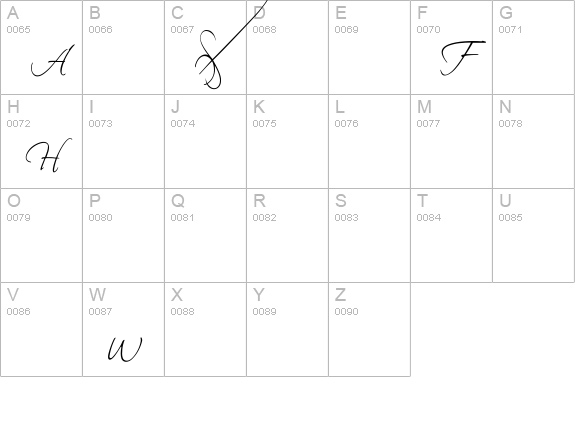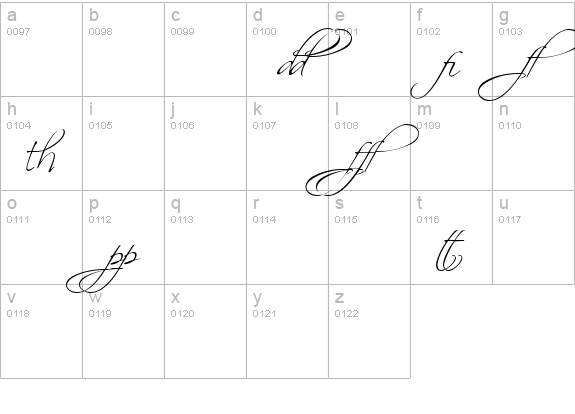
Scriptina - Alternates Font Details
Scriptina - Alternates is a stunningly elegant and versatile font that is sure to add a touch of sophistication to any design project. This font features a beautiful script style with exquisite letterforms that are both intricate and graceful. Its flowing curves and delicate strokes create a sense of elegance and charm, making it perfect for wedding invitations, greeting cards, logos, and more. What sets Scriptina - Alternates apart is its extensive collection of alternate letterforms. This font offers a wide range of stylistic variations for each letter, allowing you to customize your designs and add a unique and personalized touch. Whether you want a more embellished look or a simpler design, Scriptina - Alternates has the perfect option for you. And the best part? Scriptina - Alternates is completely free to download at FontsMarket.com. This means that you can enjoy the beauty and versatility of this font without spending a dime. Simply visit FontsMarket.com, search for Scriptina - Alternates, and start using this exquisite font in your projects today. With Scriptina - Alternates, you can effortlessly elevate the visual appeal of your designs and create stunning pieces that captivate and inspire. Its timeless elegance and flexibility make it a must-have for any designer or typographer. So why wait? Download Scriptina - Alternates for free at FontsMarket.com and unlock a world of endless creative possibilities.